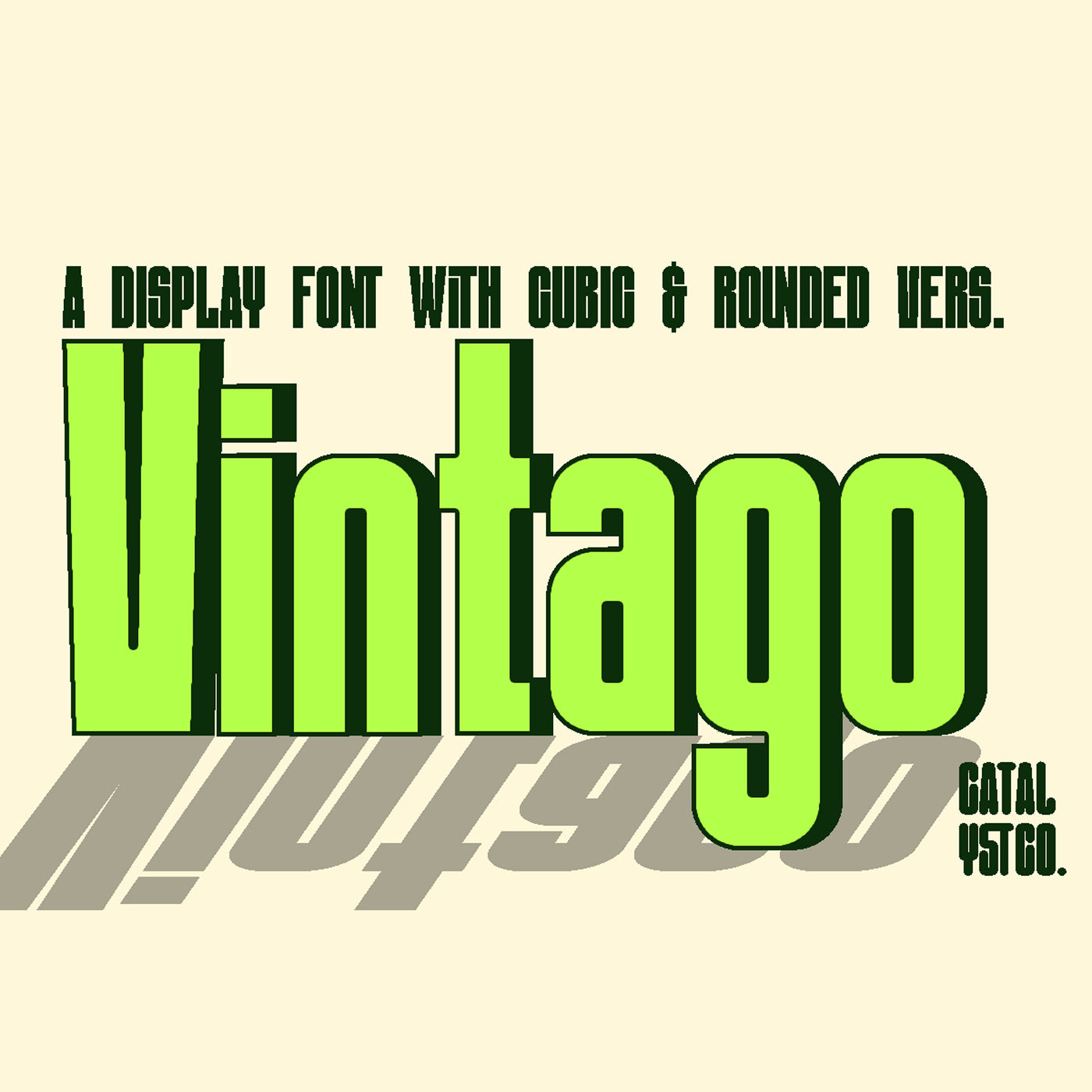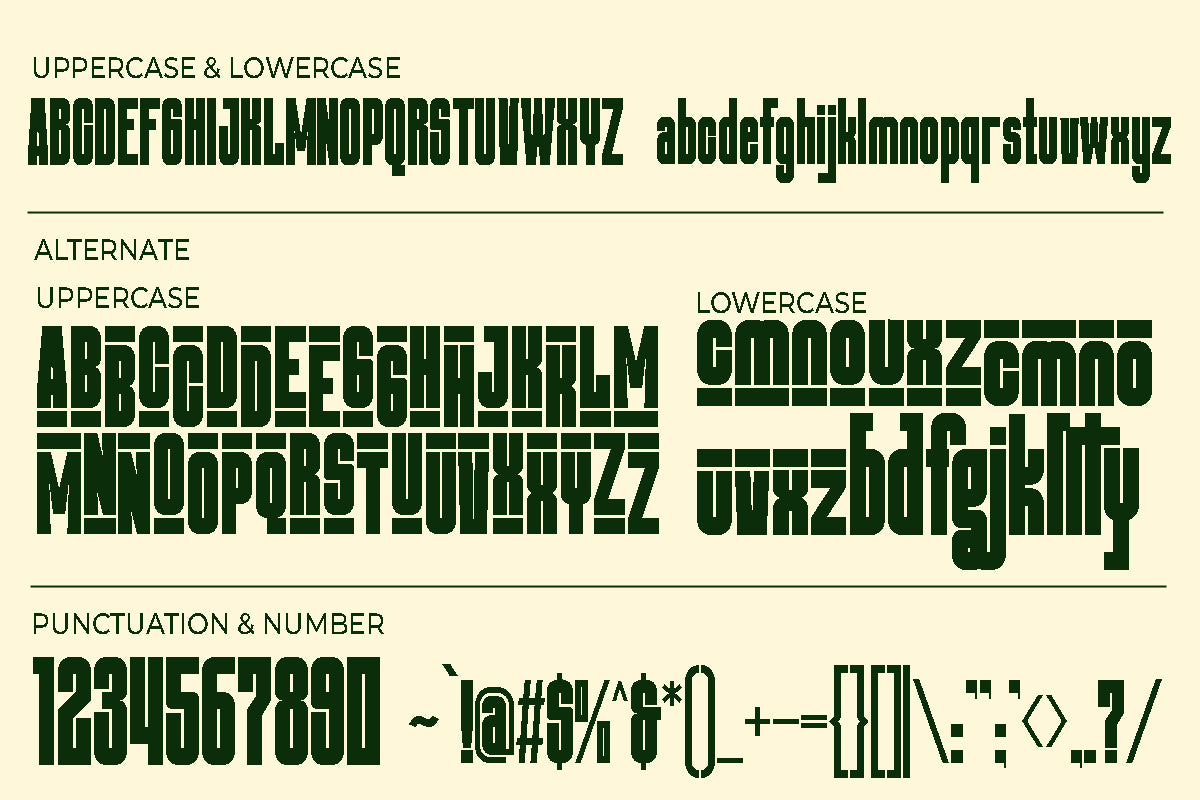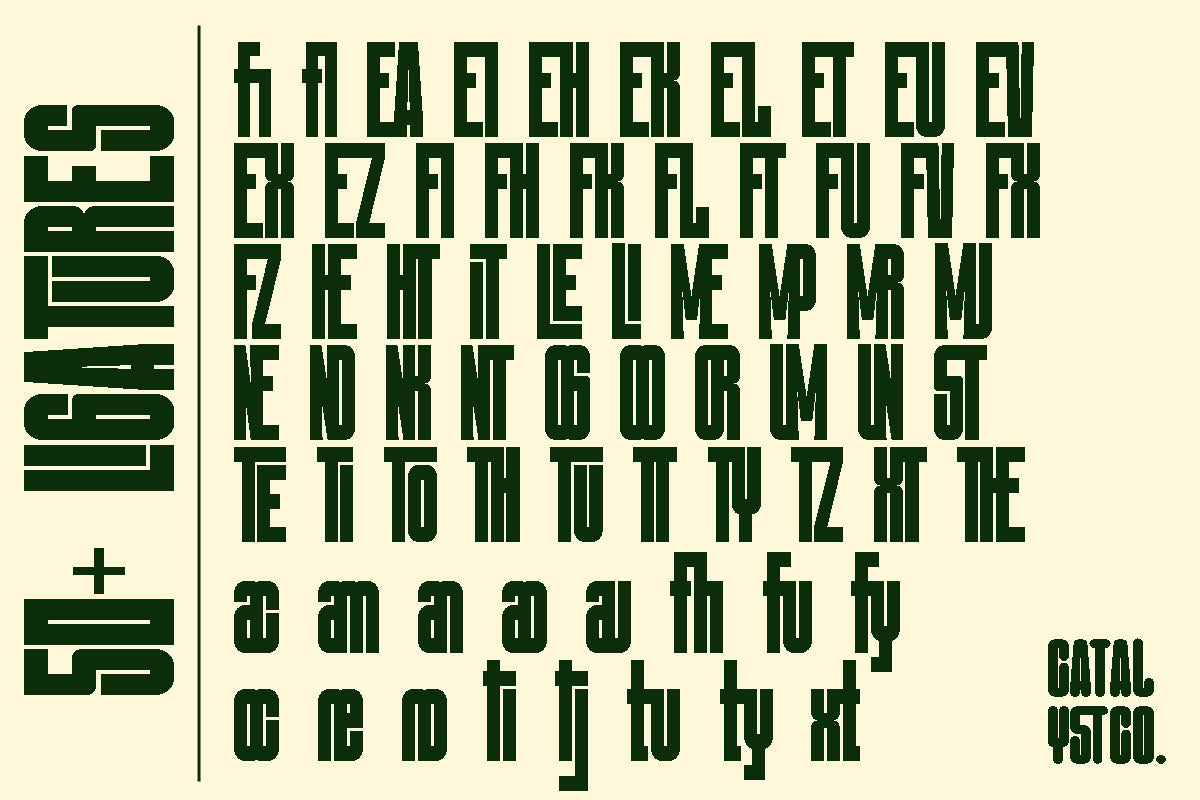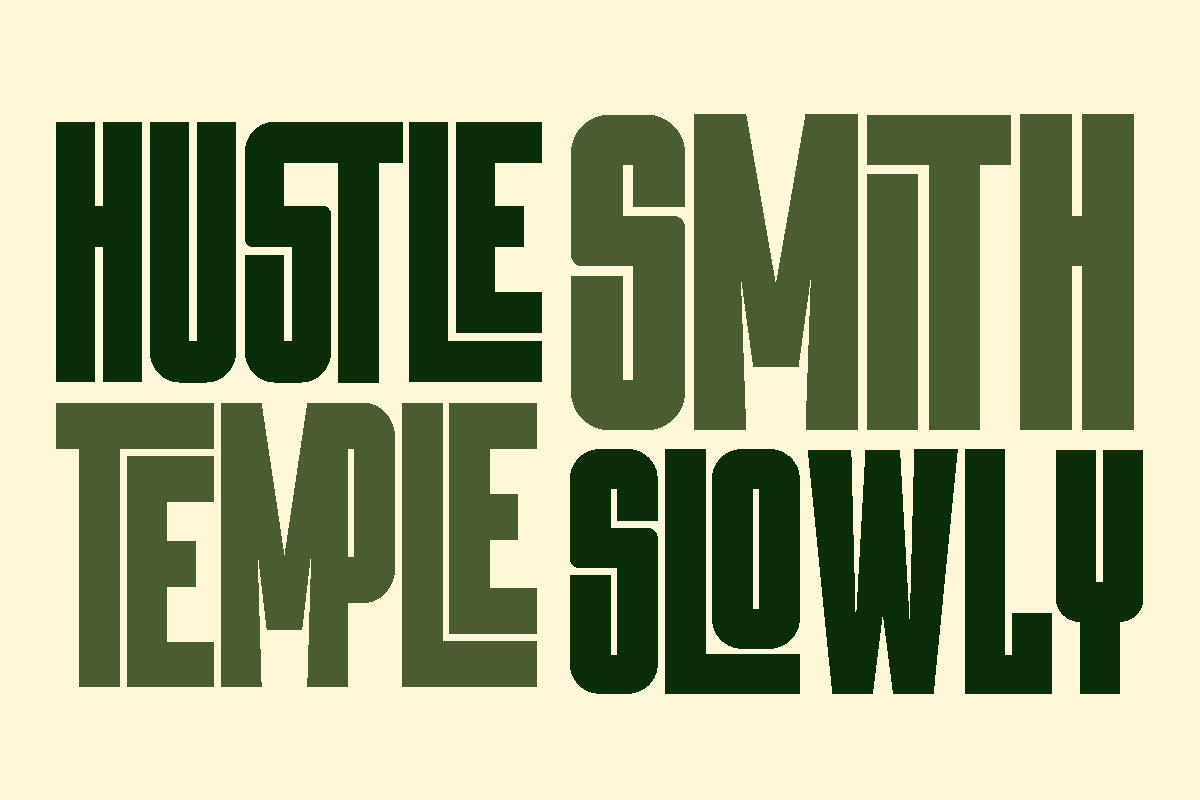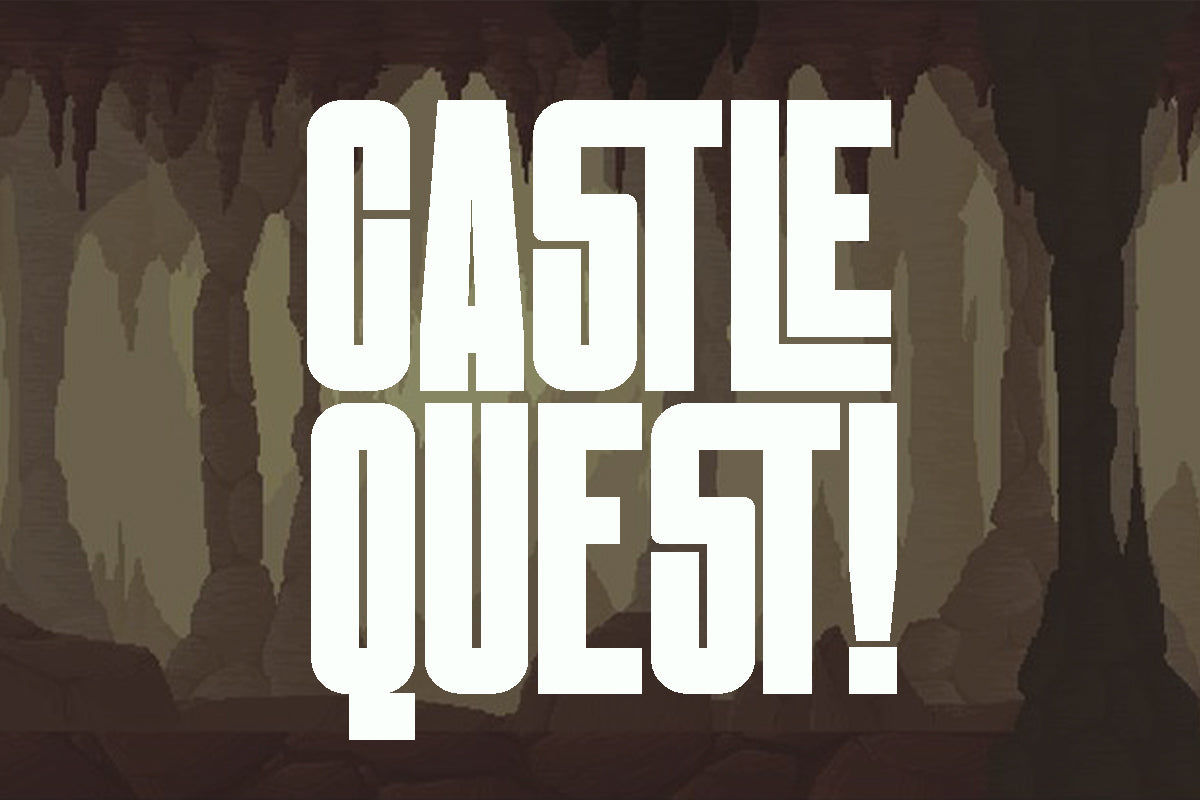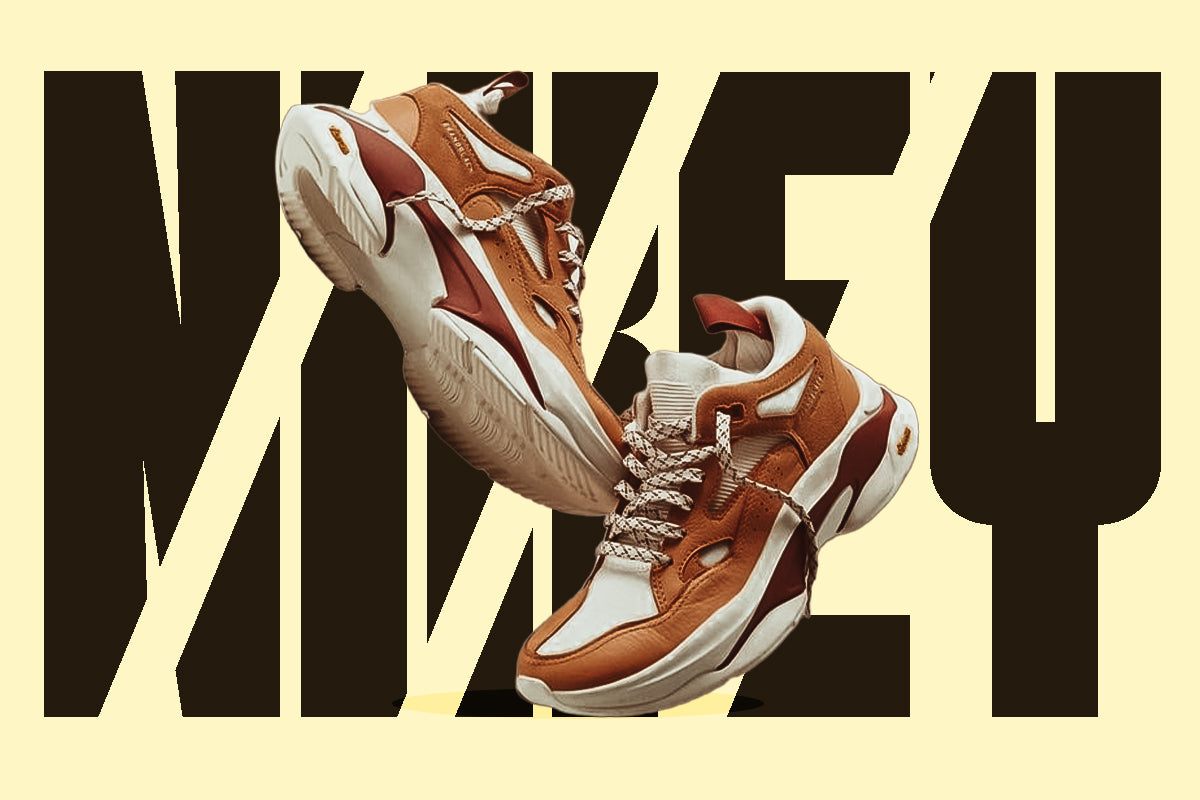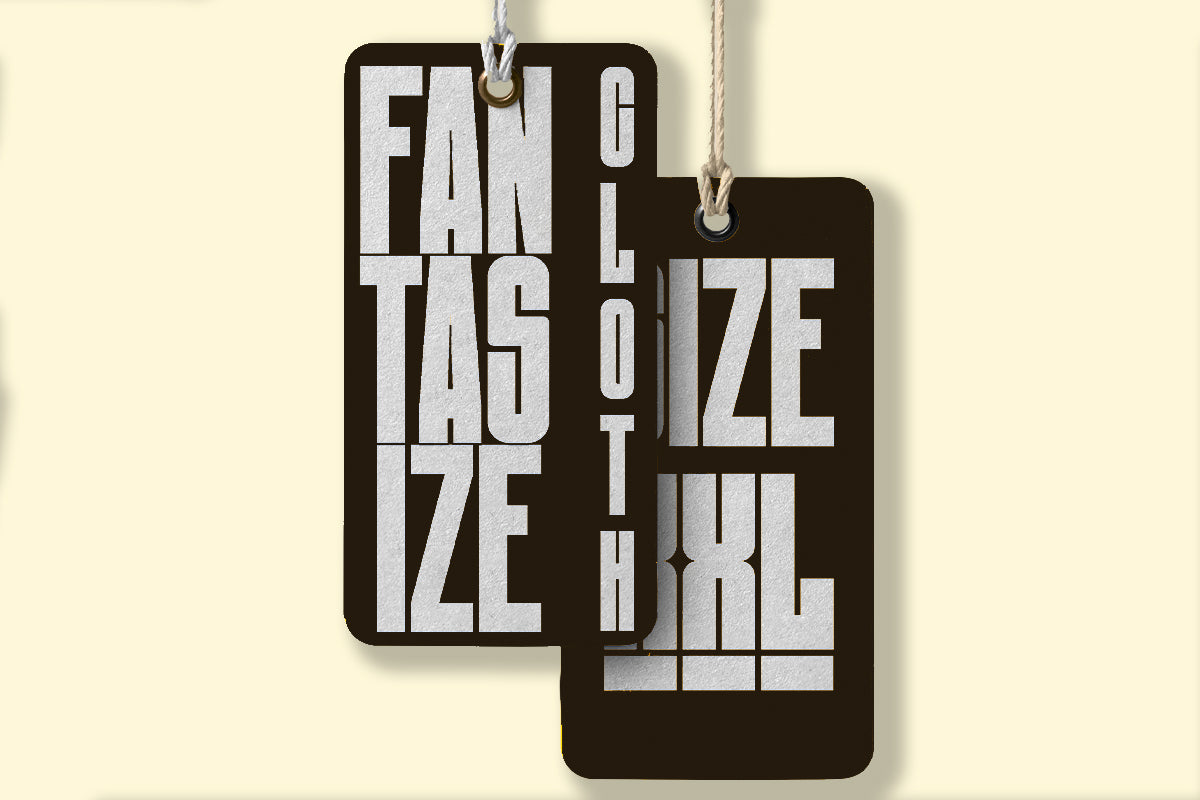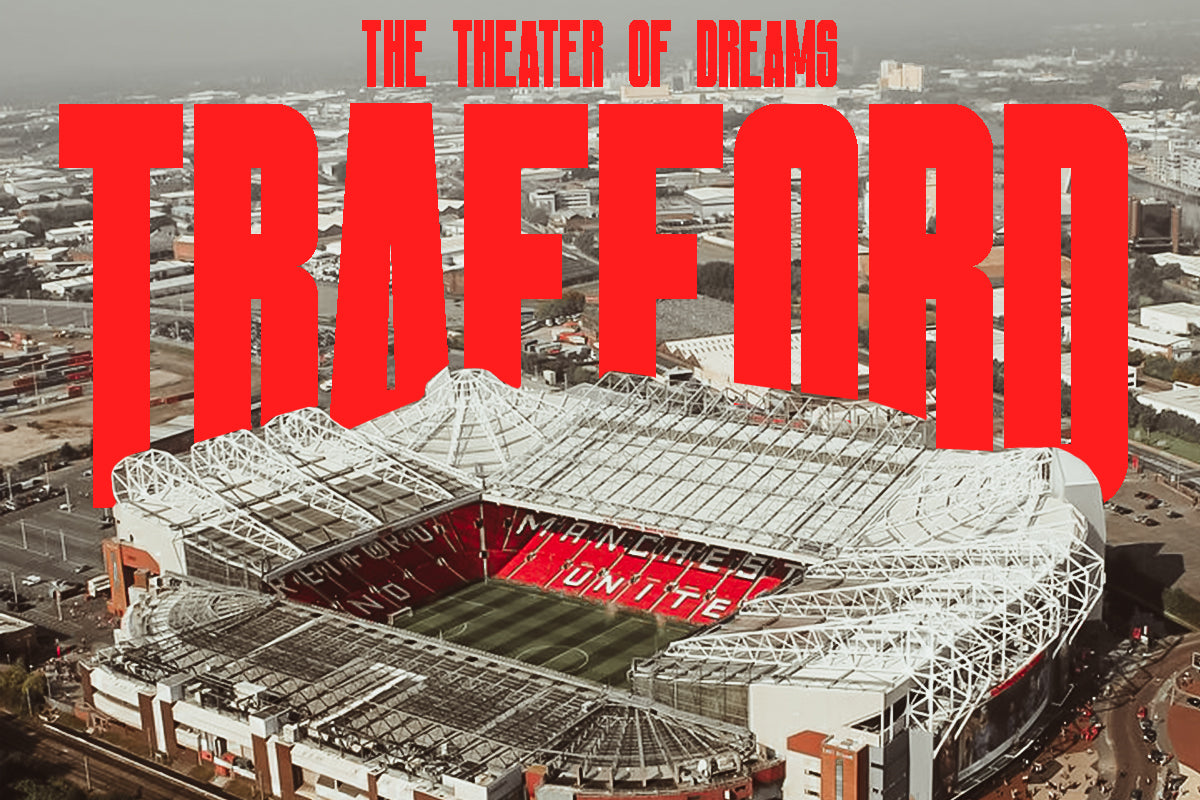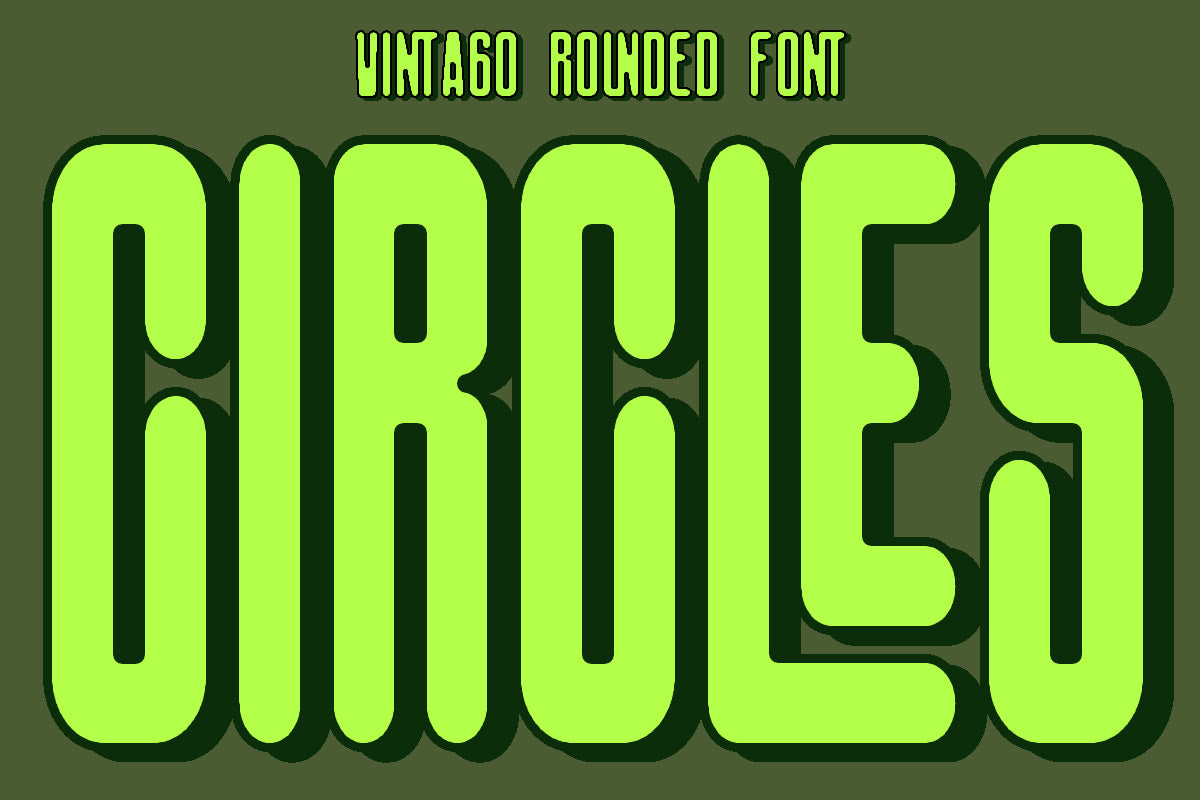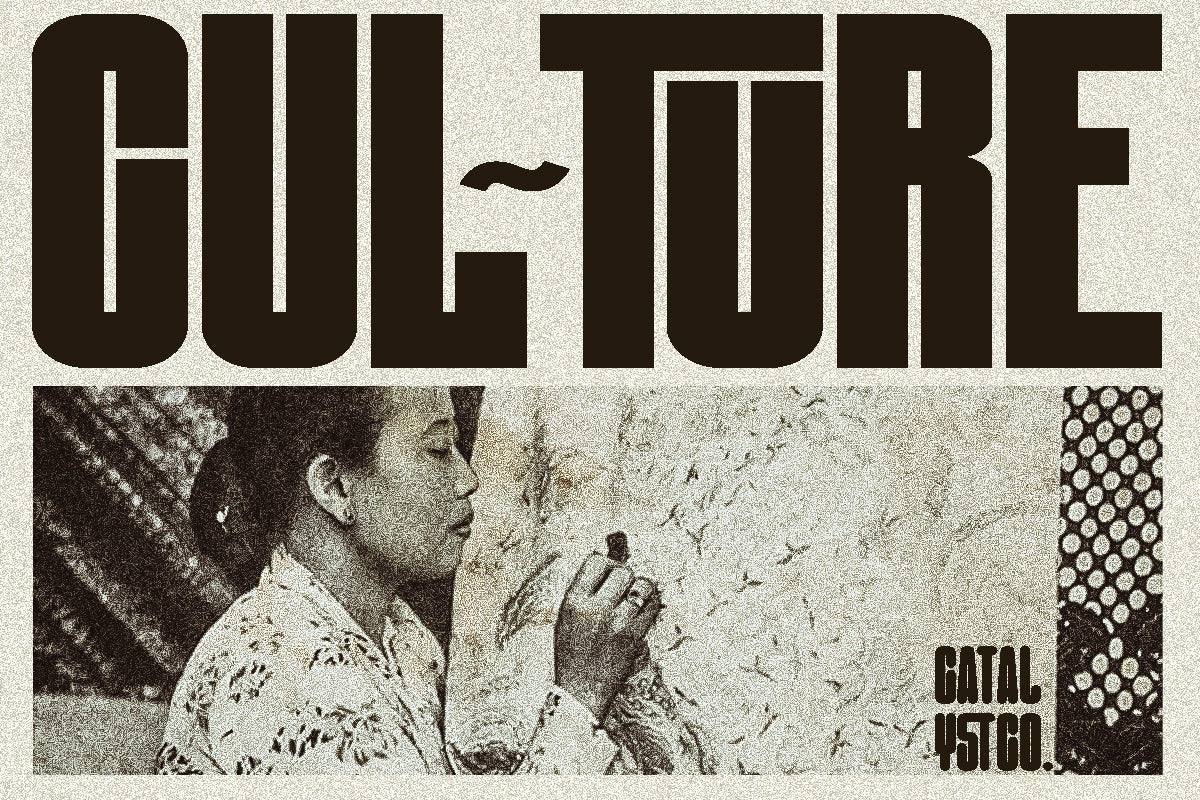
Vintago Display Font
Vintago Display Font is a bold and powerful display font that comes in both cubic and rounded versions, offering maximum flexibility for creative typography. Inspired by retro serif aesthetics and designed with strong geometric shapes, Vintago makes a bold statement in headlines, posters, logos, and more. This font combines modern bold looks with a vintage edge, making it a great fit for designs needing an expressive, blocky, or slightly tech font style. With alternates and stylistic characters, Vintago suits sport fonts, editorial, or professional font projects alike.
Vintago Display Font is a bold geometric display typeface available in cubic and rounded versions, featuring uppercase and lowercase letters, ligatures, alternates, numerals, and punctuation. It is provided in TTF, OTF, and WOFF formats with multilingual character support.